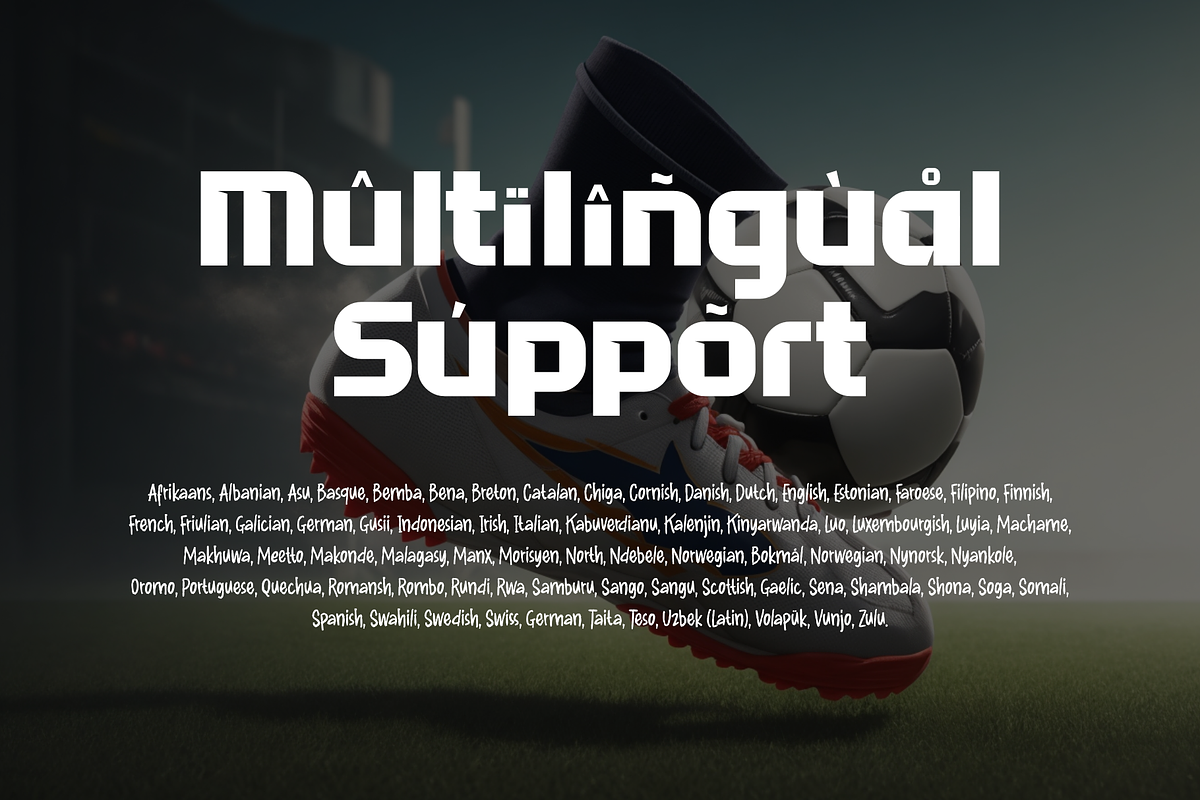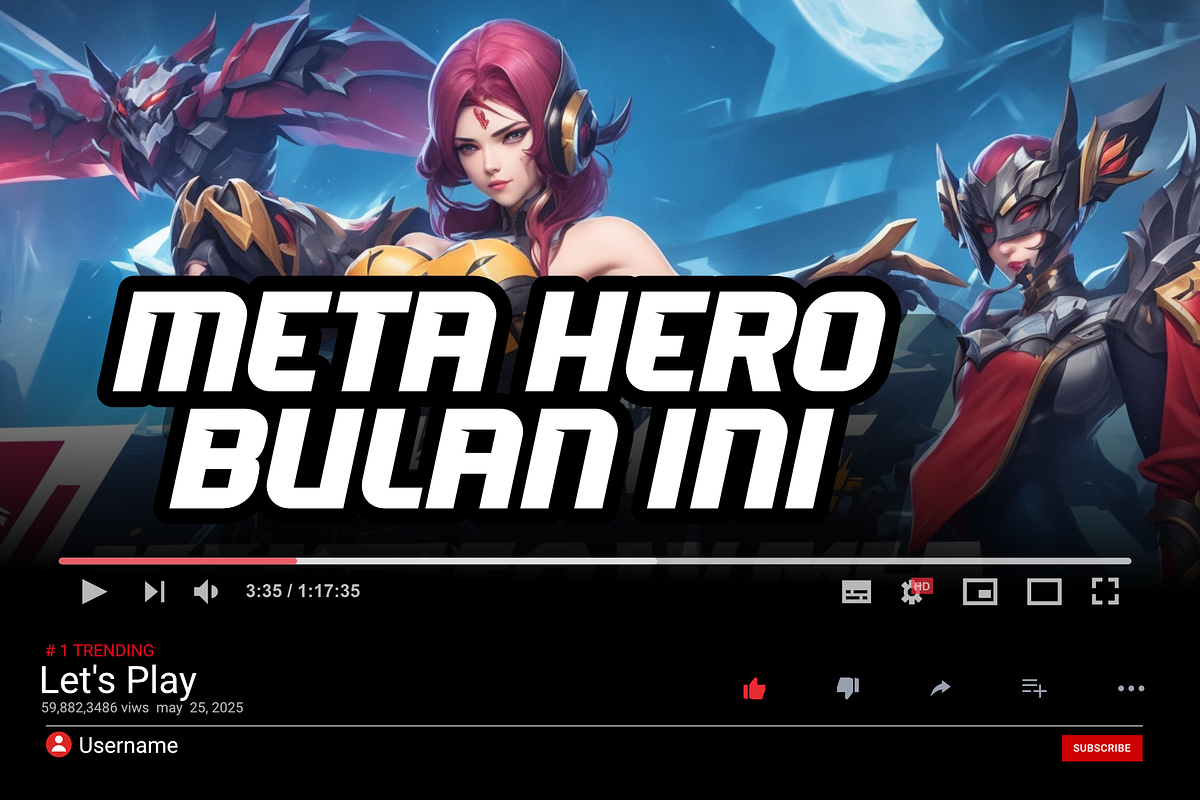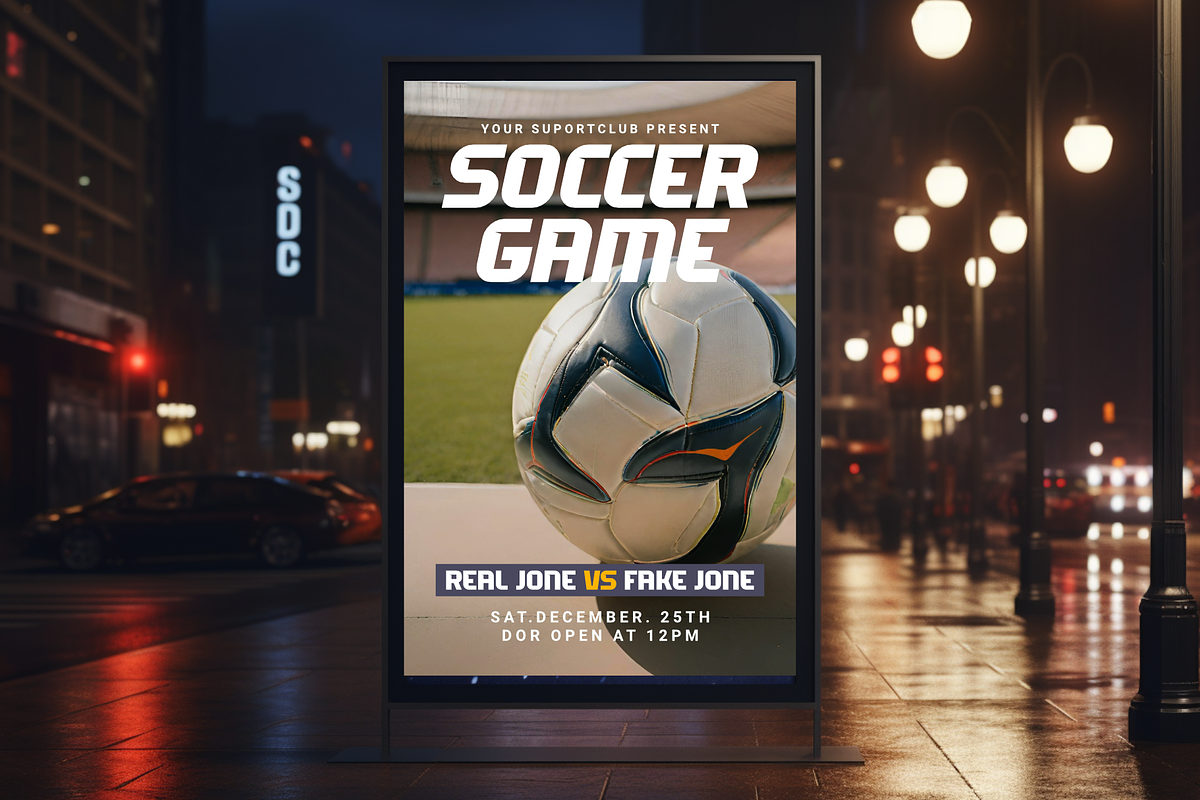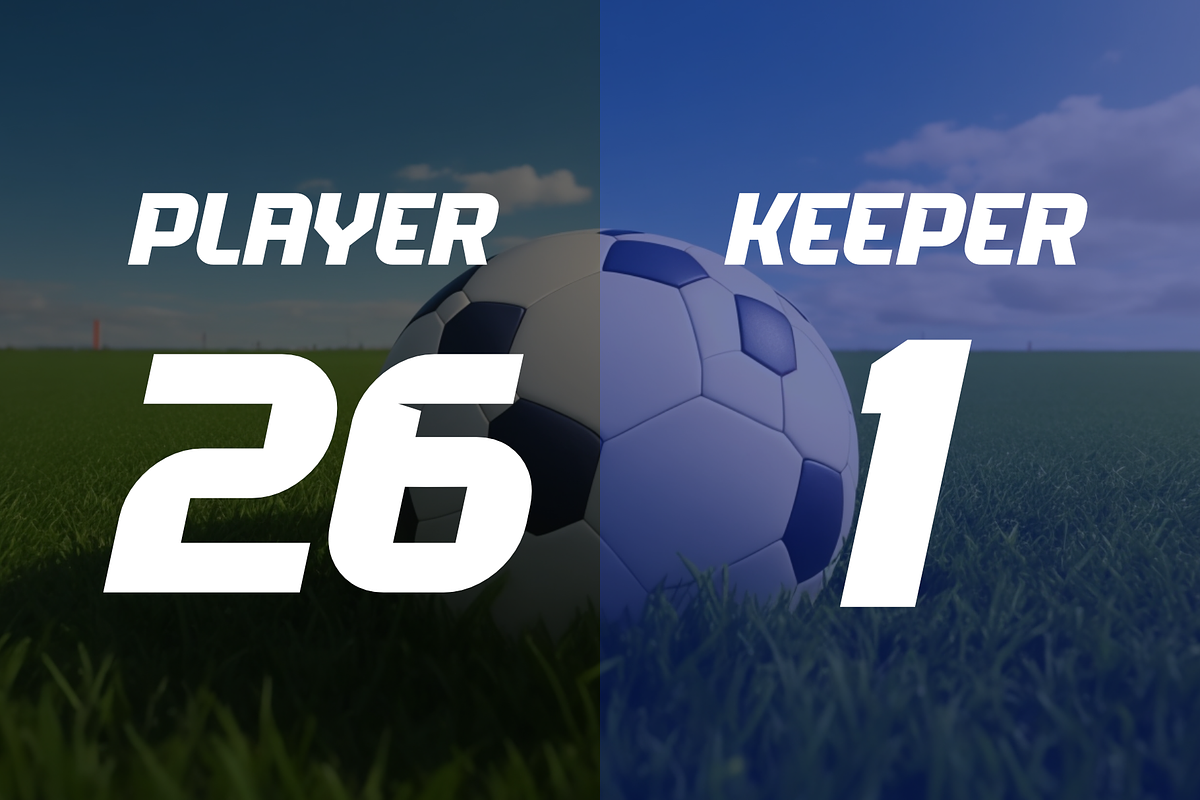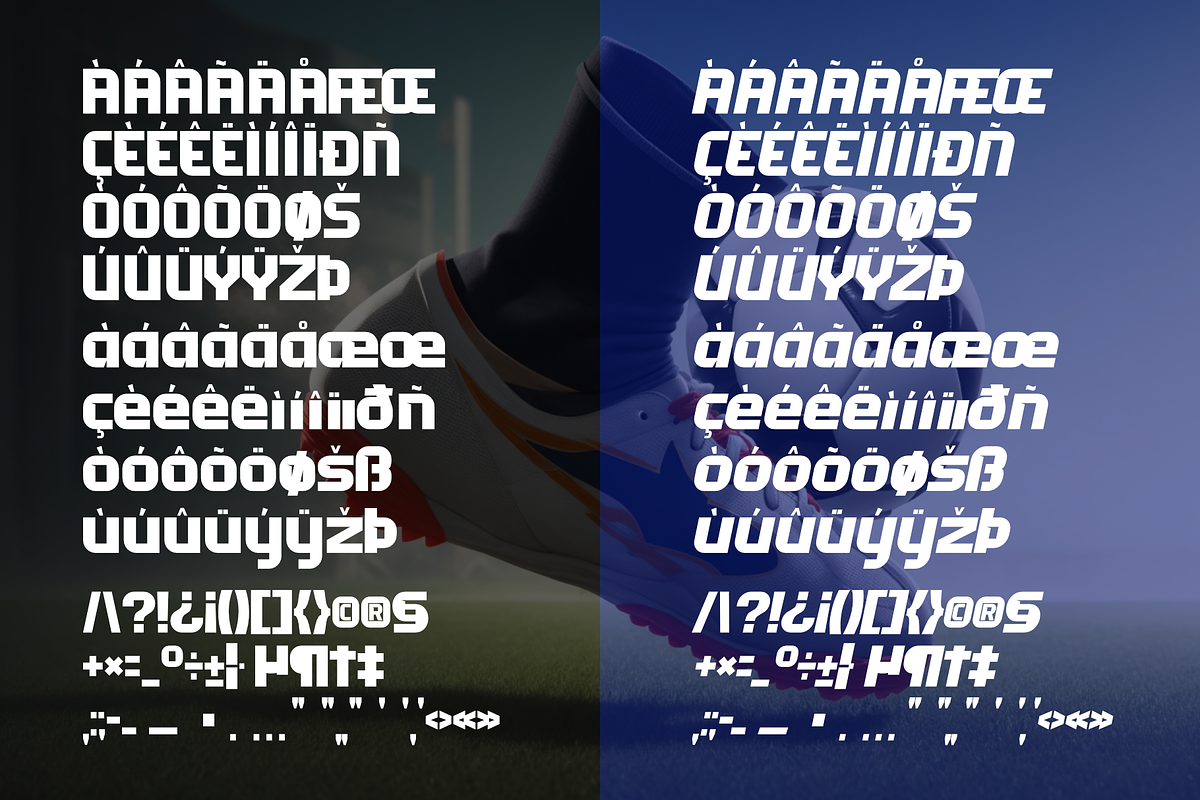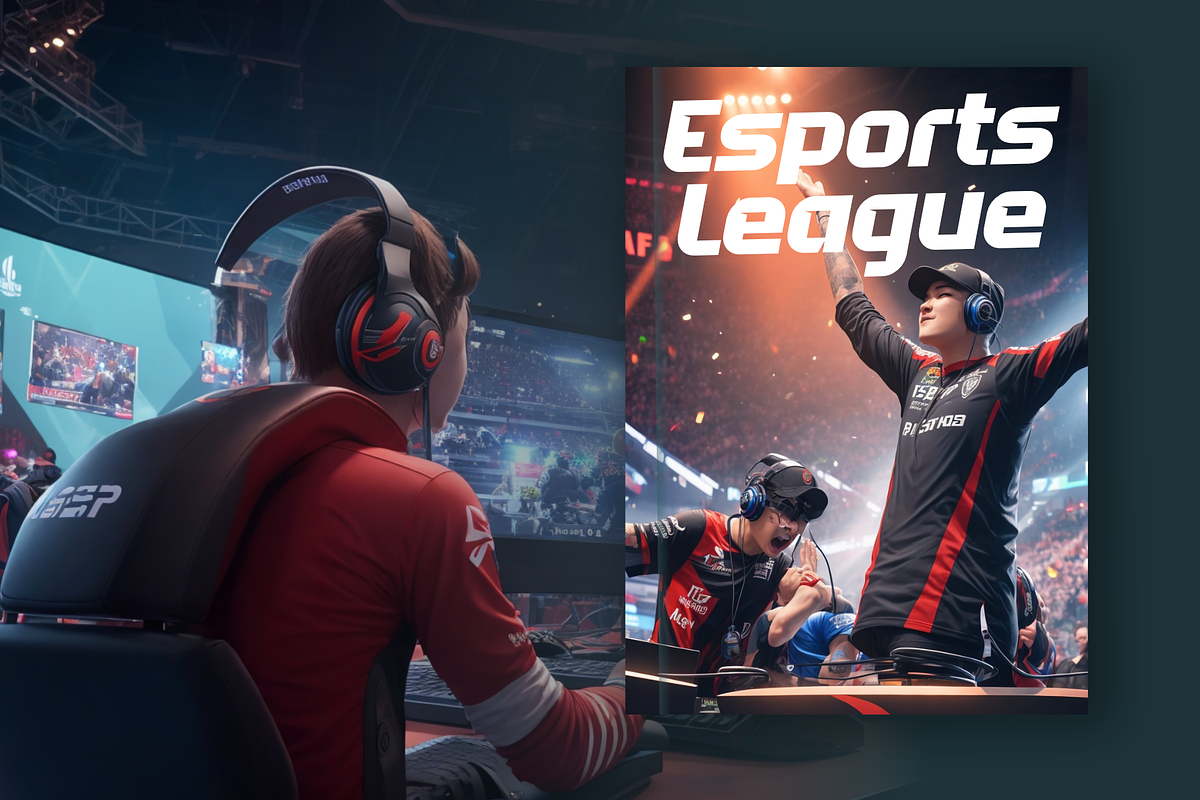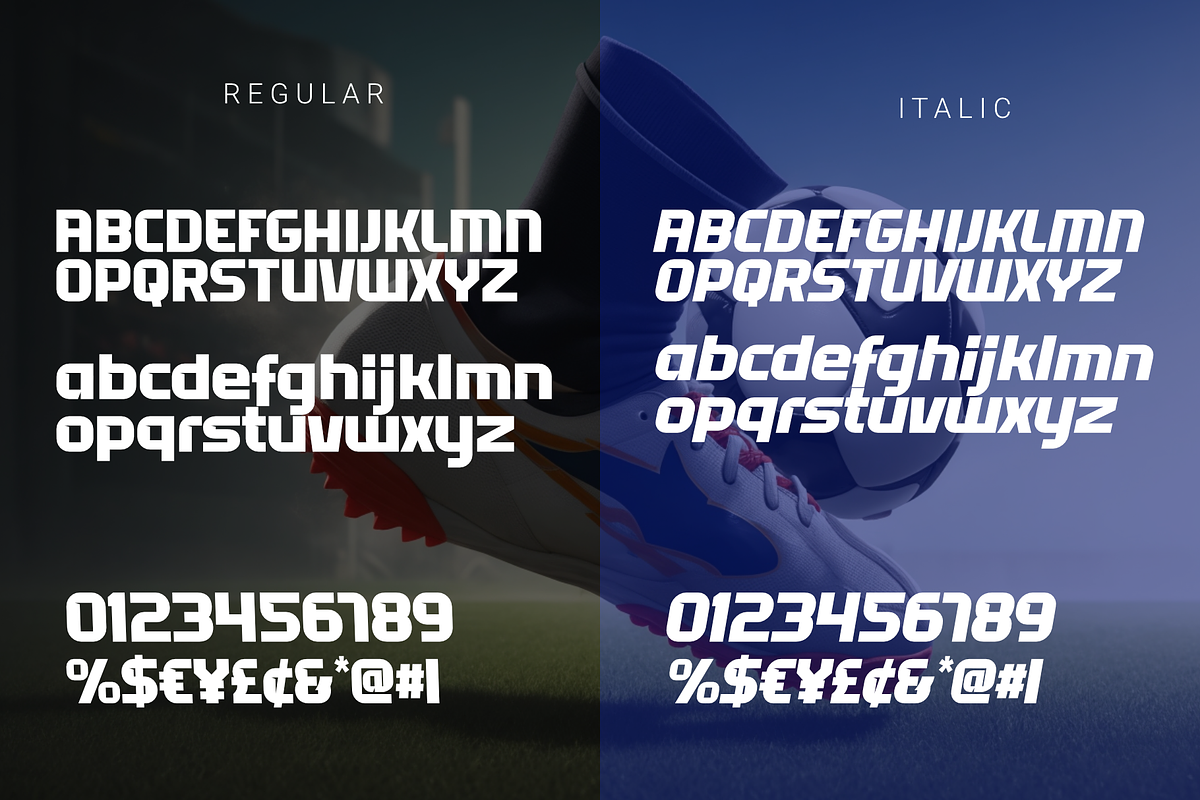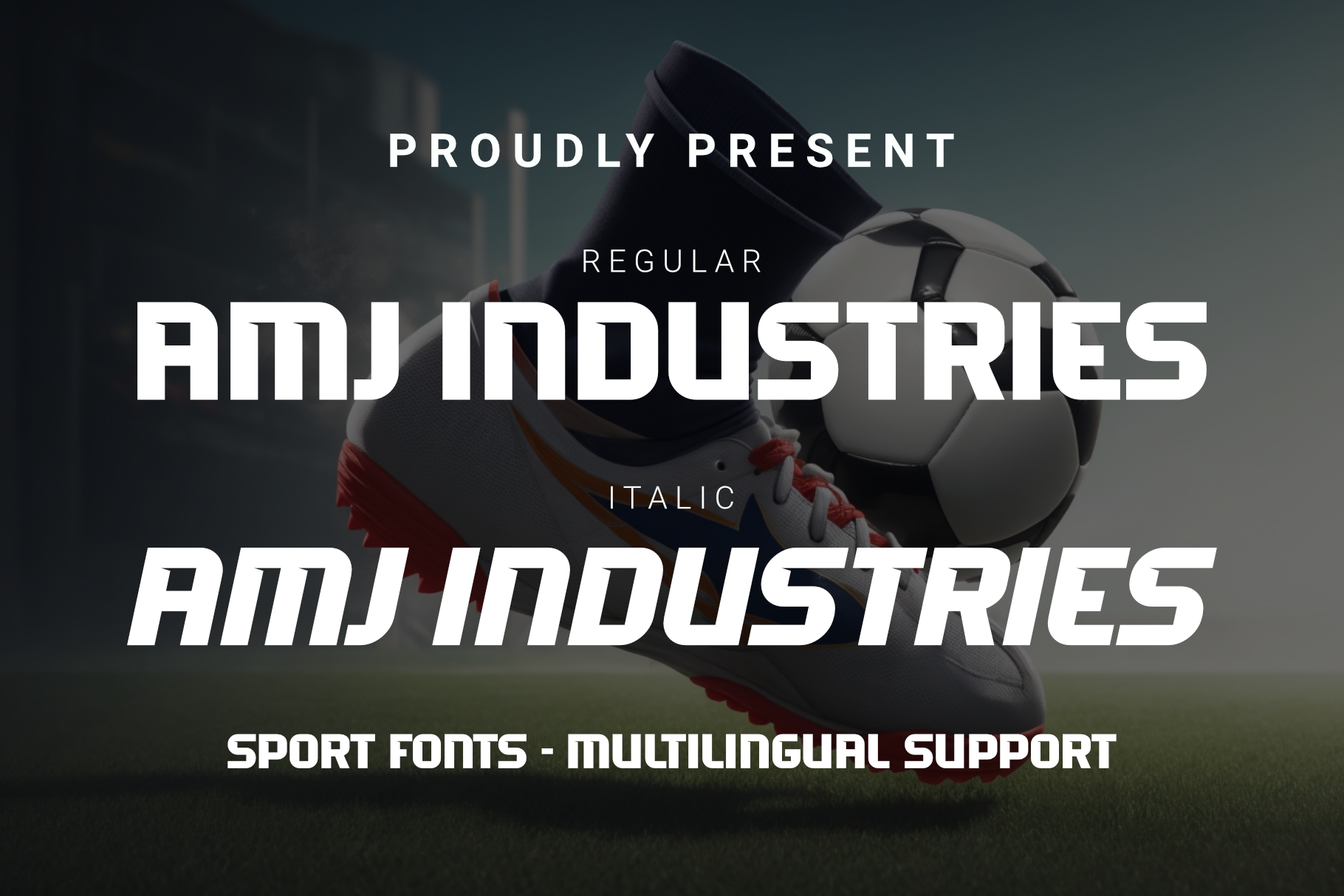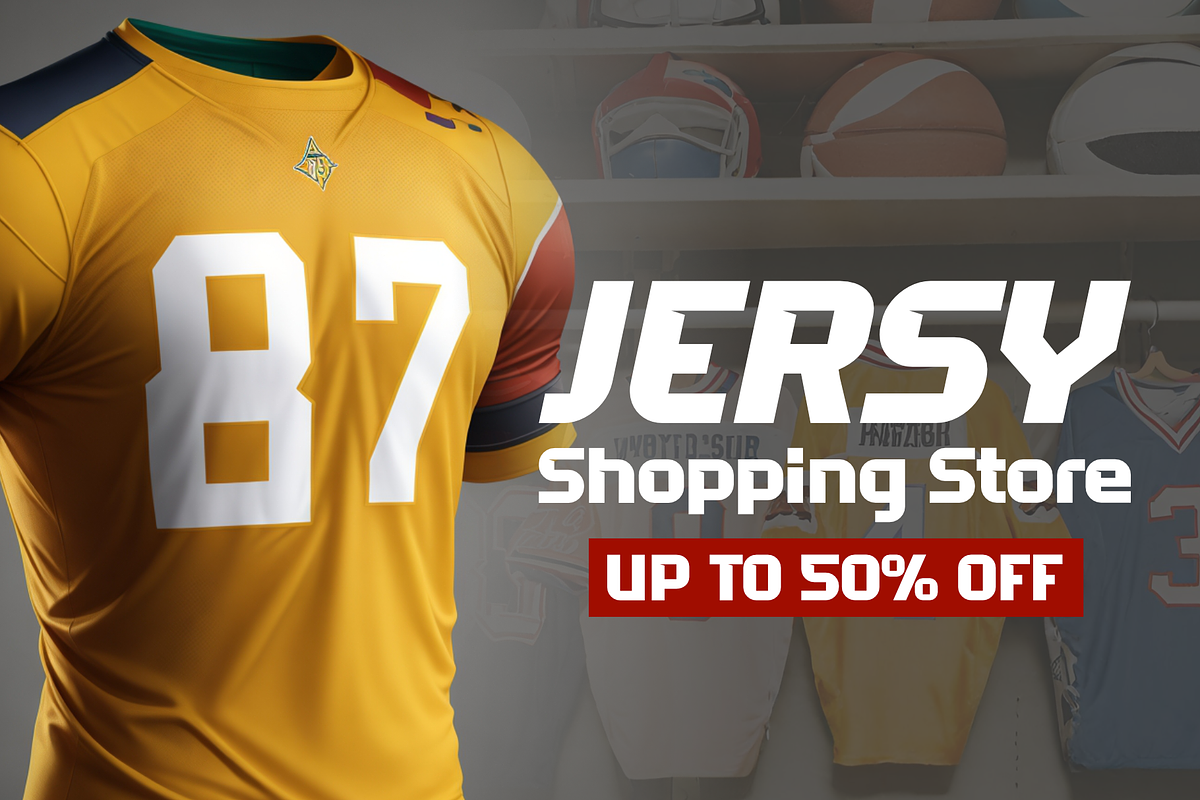
AMJ INDUSTRIES - SPORT FONT
AMJ INDUSTRIES is a font specifically designed to create a dynamic and energetic impression, making it a perfect choice for sports-related designs. This font features strong characteristics, sharp lines, and a modern design, making it ideal for various sports-related projects, such as logos, posters, jerseys, and promotional materials.
AMJ INDUSTRIES has an aggressive and masculine typographic style, with large standout letters and bold lines that signify strength and ruggedness. Its design combines futuristic elements with sports-inspired motifs, creating a font that is well-suited for sports teams, sports equipment brands, and major sports events.
With AMJ INDUSTRIES, you can convey a powerful and captivating message in your designs, emphasizing the spirit of competition and athleticism. This font offers flexibility and creativity in its use, allowing you to bring a unique and distinctive touch to every sports design project.